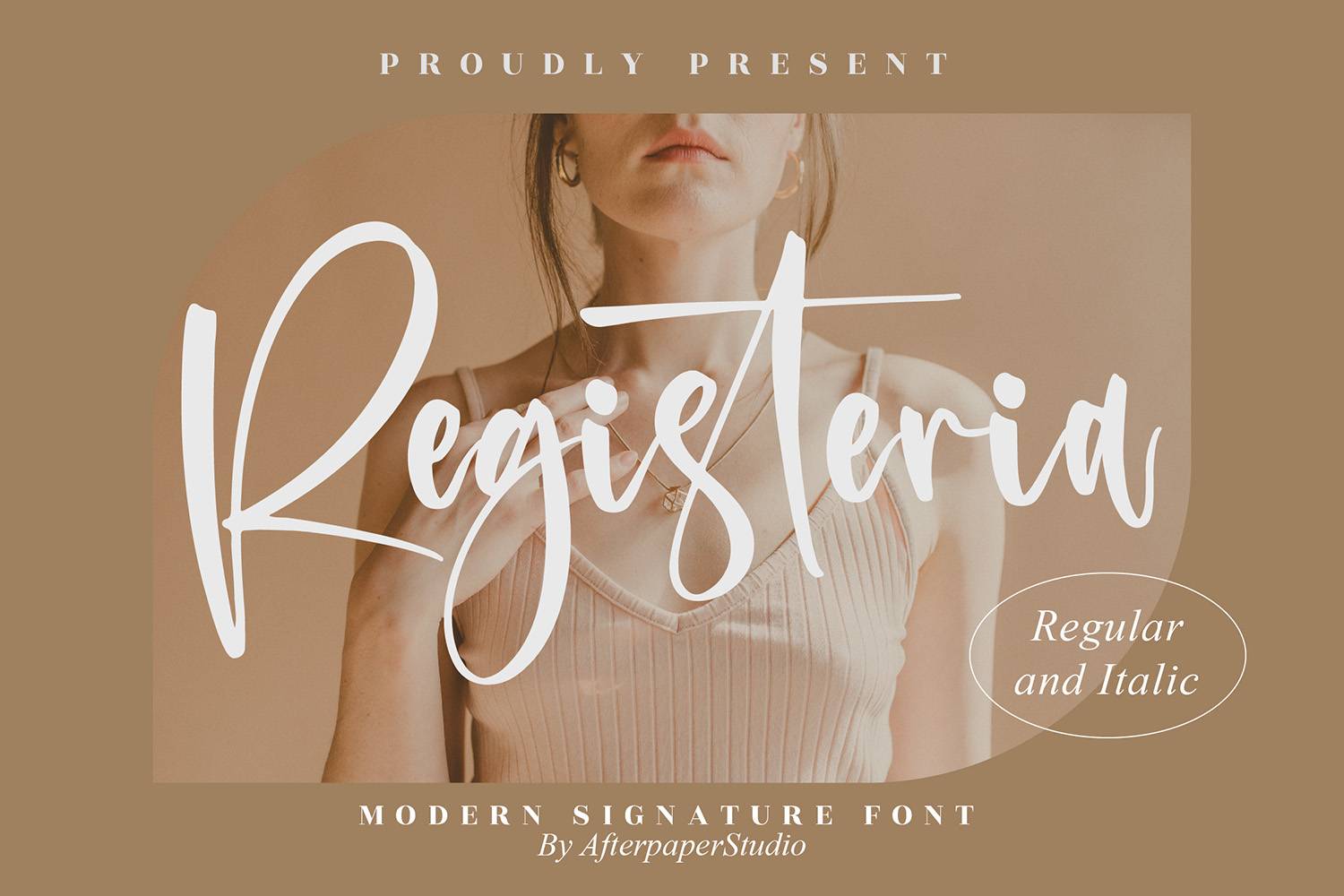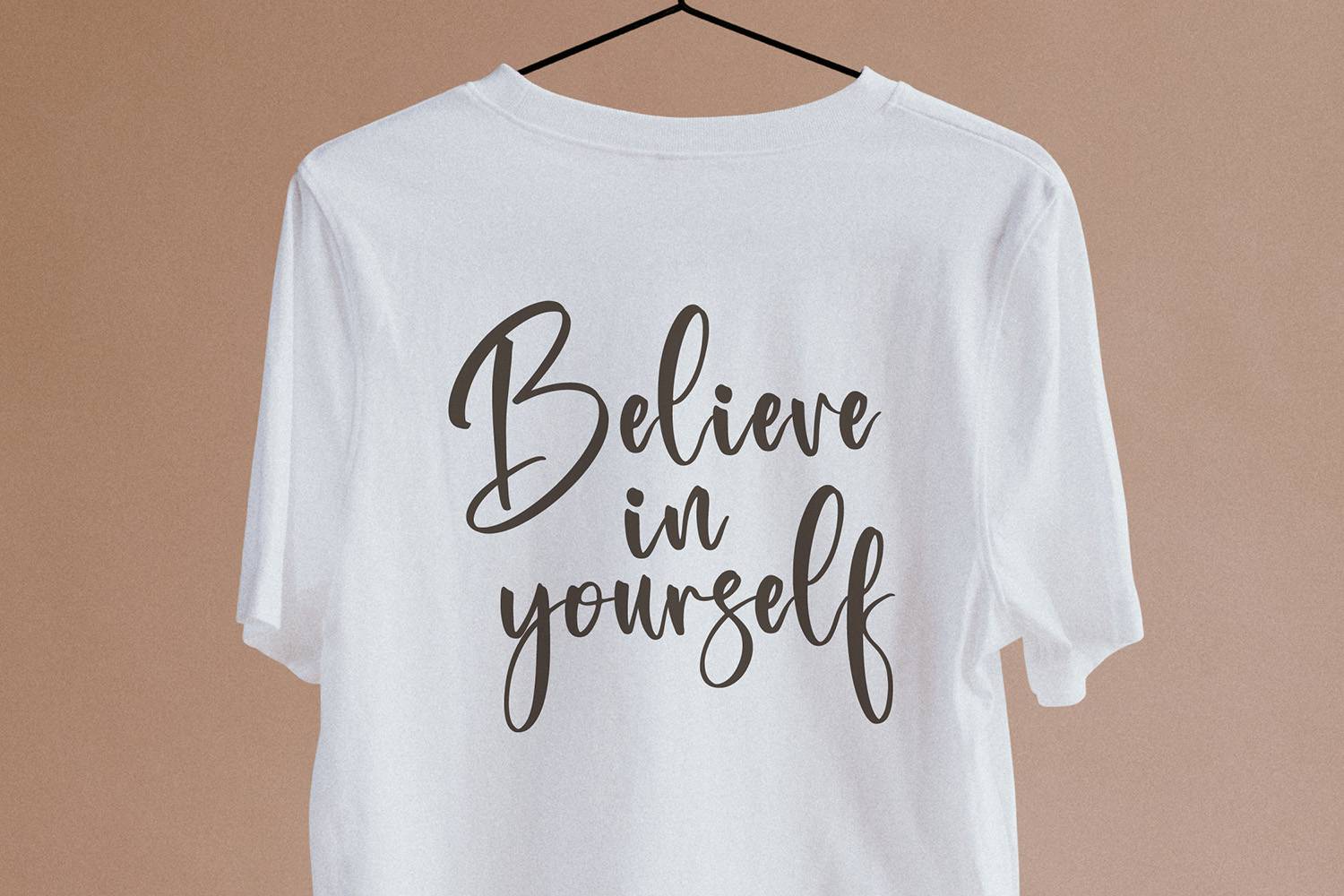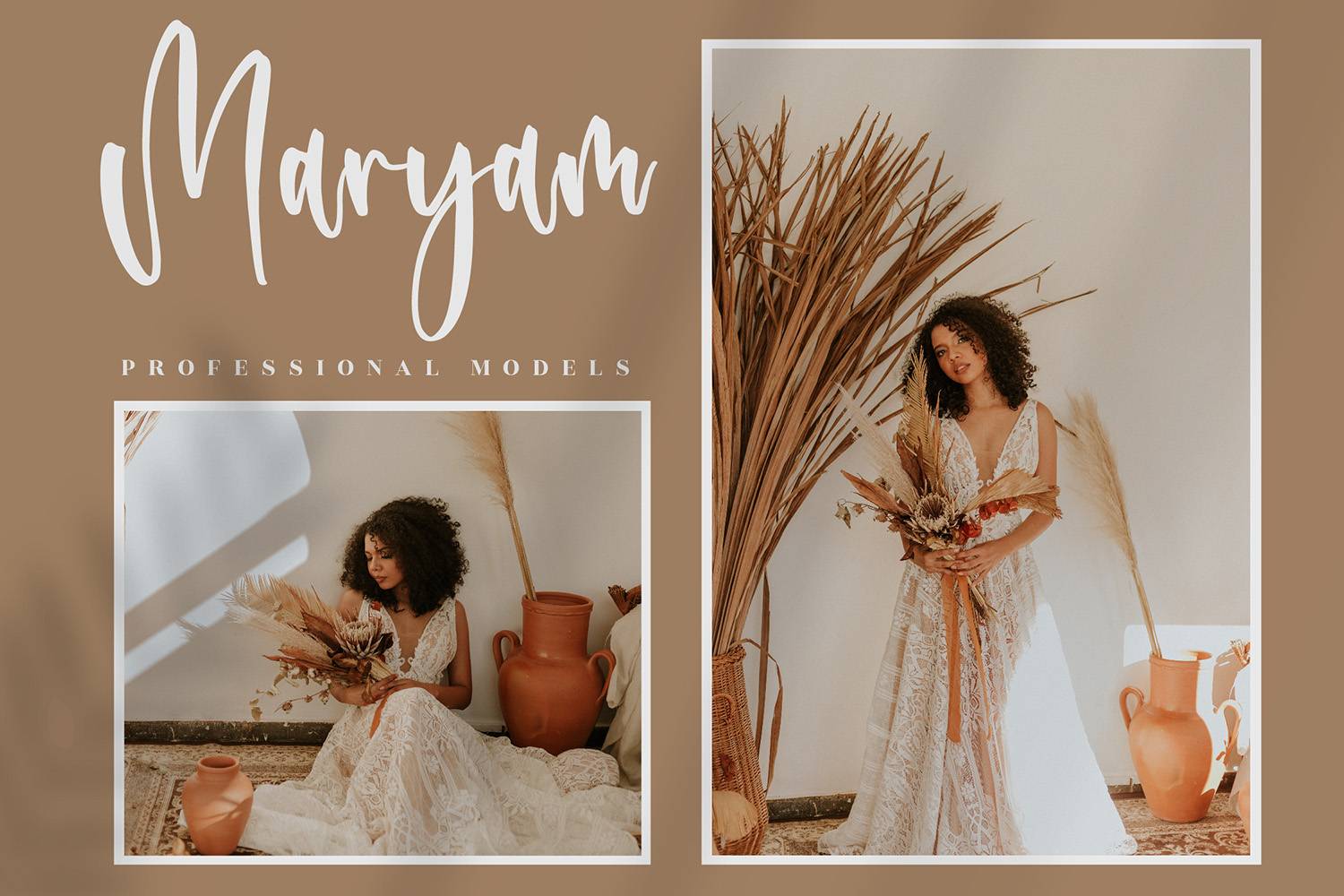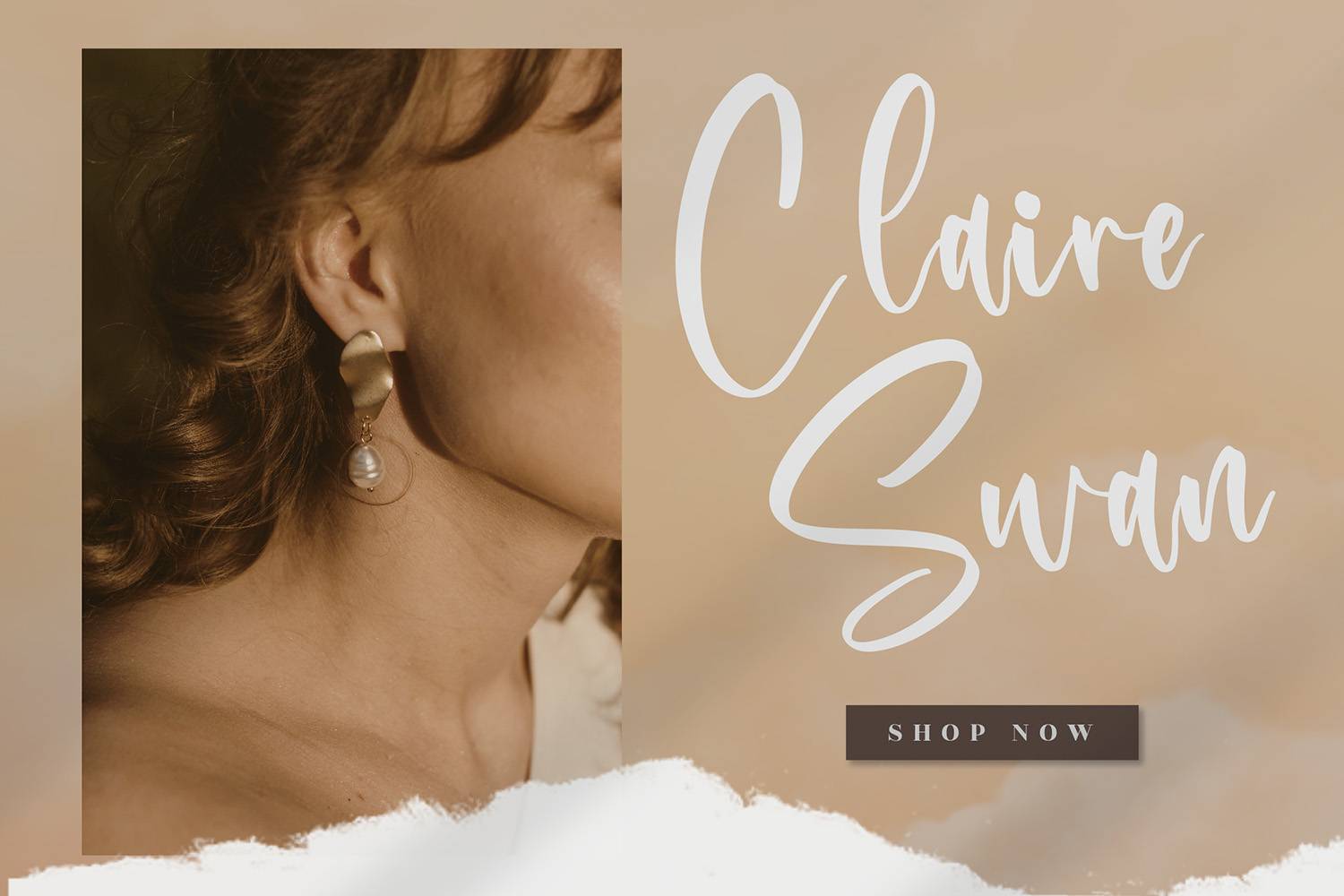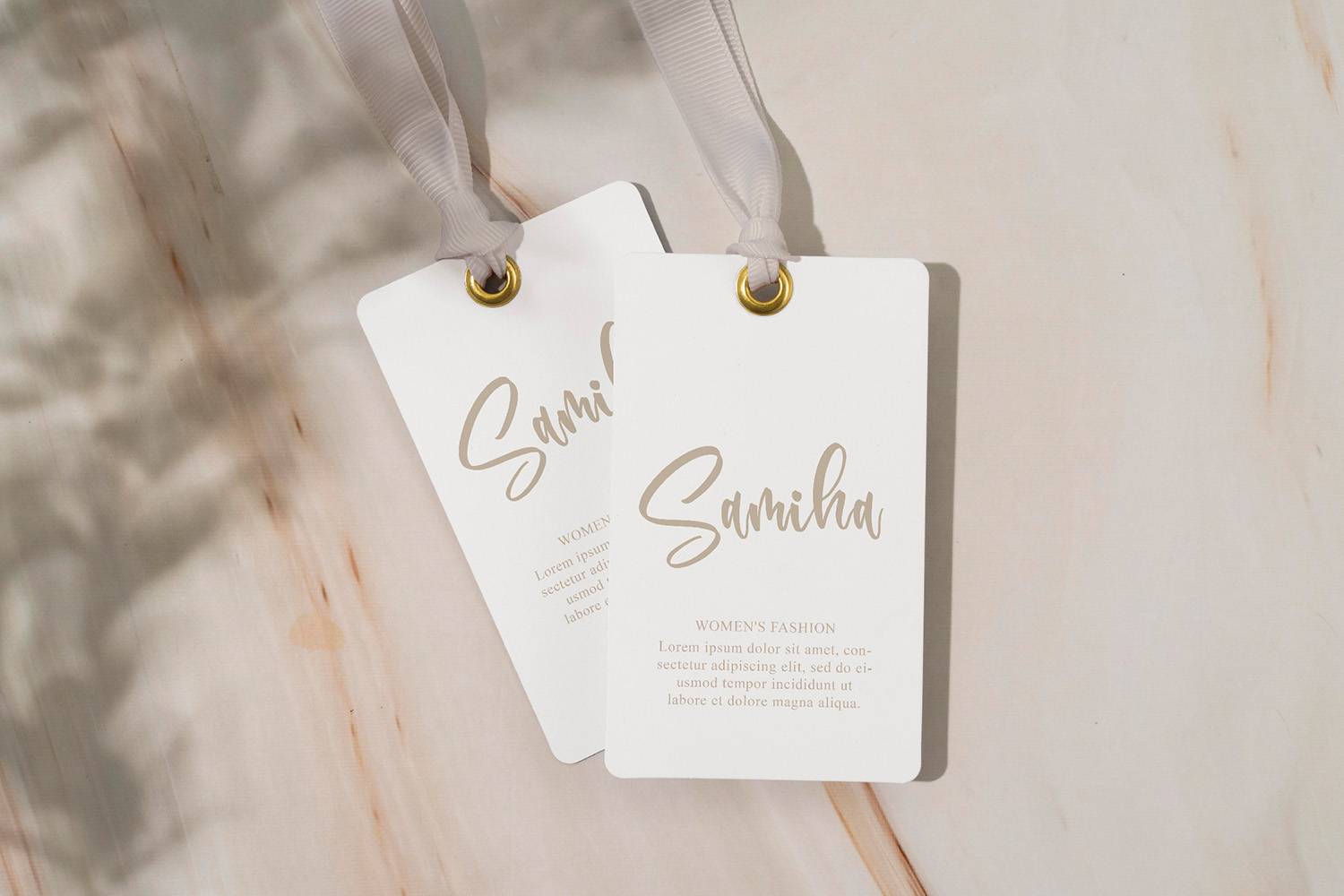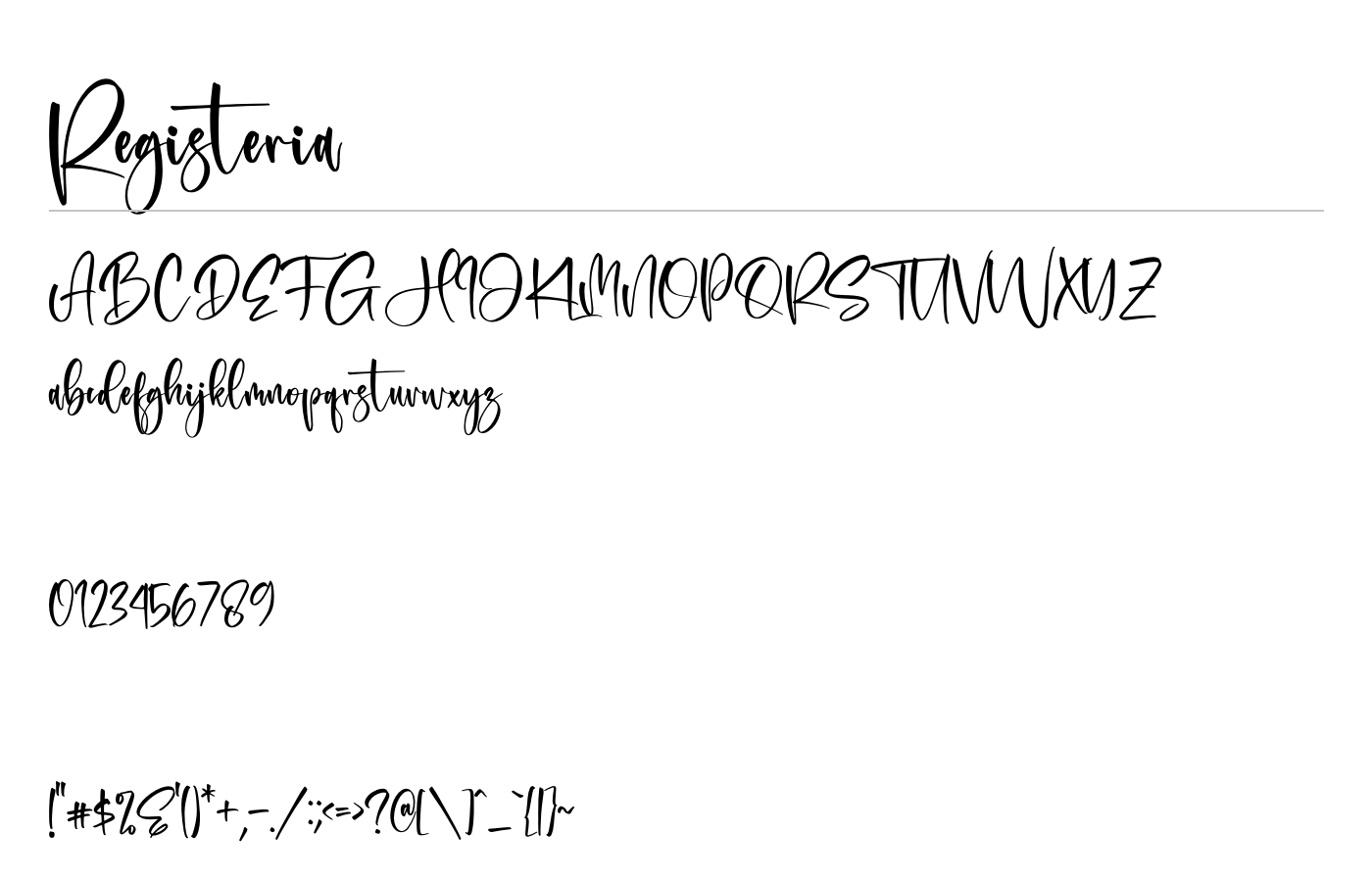
Registeria is a lively and elegant script font with a hand-lettered feel, featuring tall, flowing letterforms and varied stroke widths that create a dynamic, personal touch. Its combination of slender, playful uppercase letters and smooth, connected lowercase characters makes it perfect for creative branding, invitations, and stylish editorial designs that seek a friendly yet sophisticated vibe. This font brings warmth and uniqueness, ideal for projects that want to stand out with a modern and artistic flair.
Registeria Font
About Registeria Font